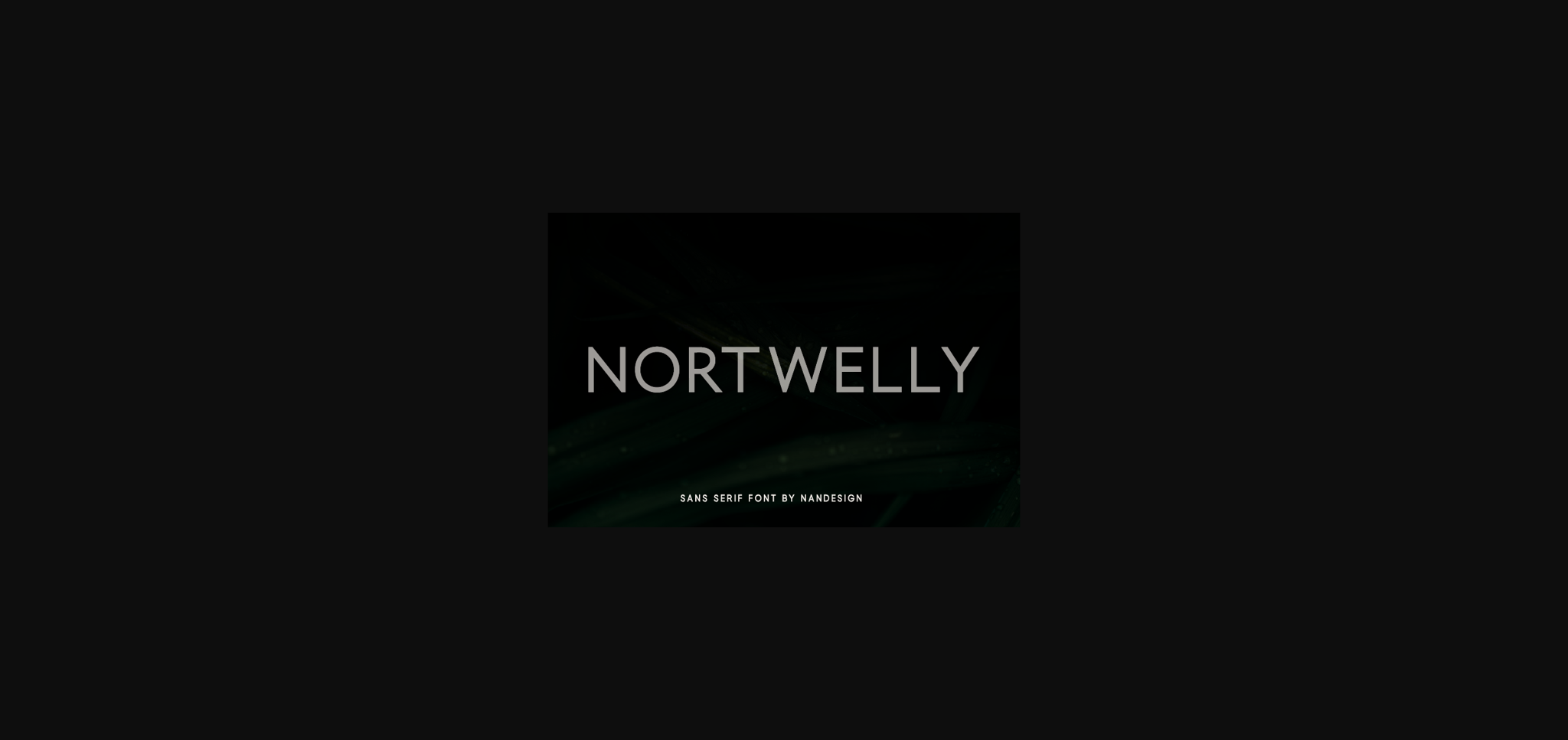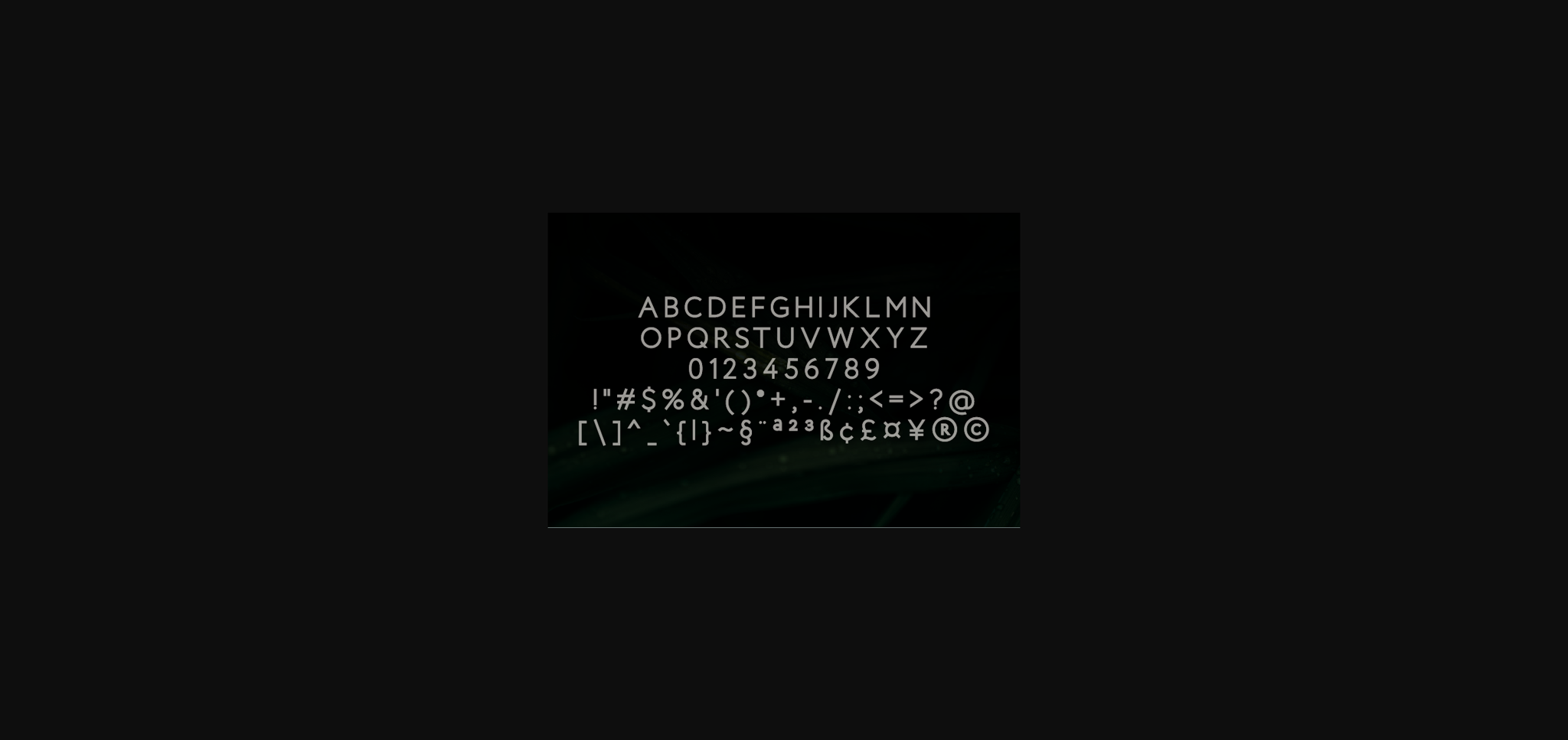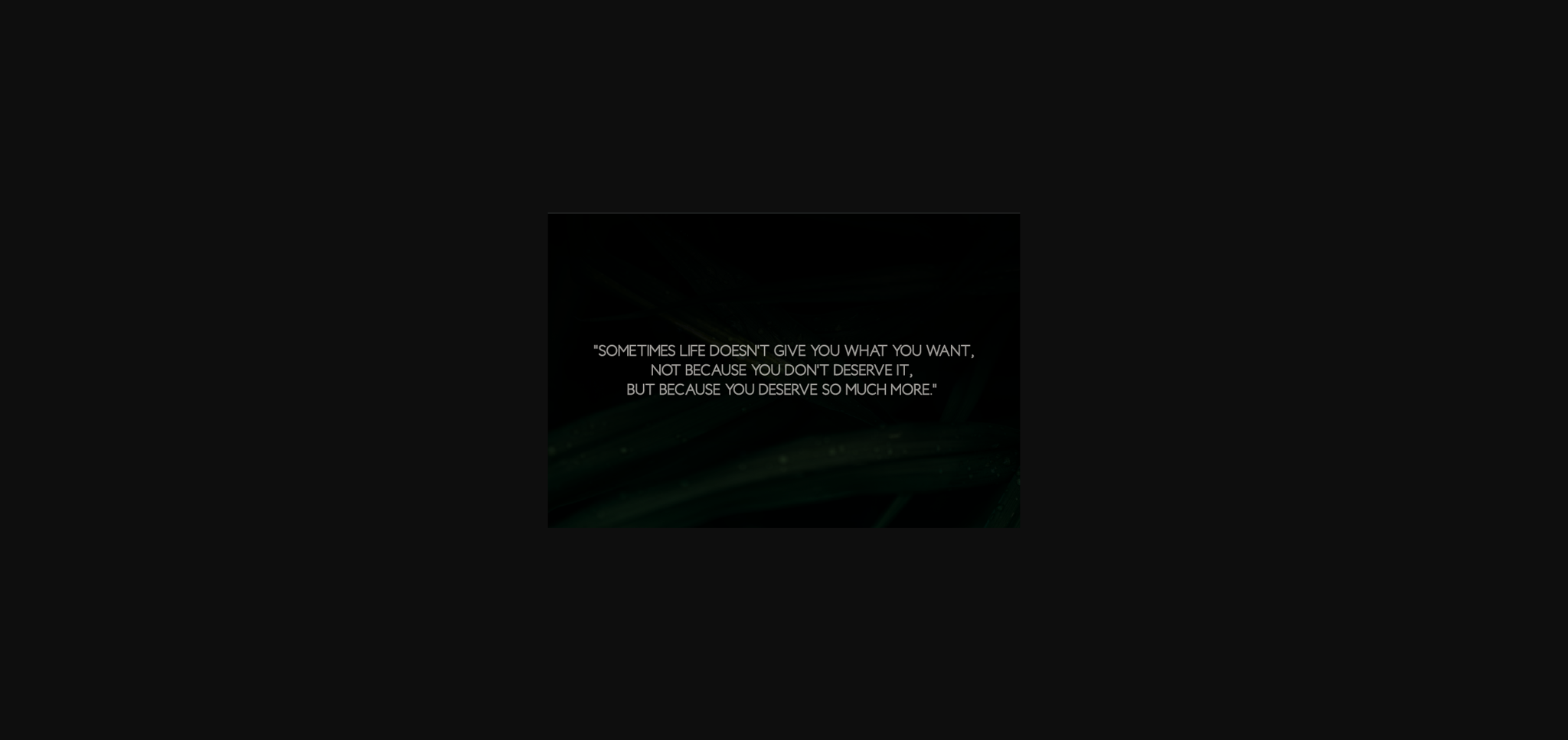
Nortwelly Font
About Nortwelly Font
Nortwelly is a simple and elegant sans serif. It can easily be matched to an incredibly large set of projects, so add it to your creative ideas and notice how it makes them stand out!